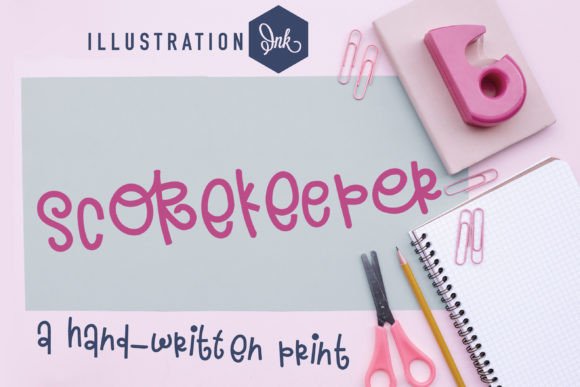
Welcome to the world of Scorekeeper, a type family that stands as a testament to the boundless creativity of human hand. A creation by Illustration Ink, this enchanting sans serif family boasts a lively, handwritten quality that is sure to make your designs sing with charm and individuality. This hand-crafted font invites you on a typographic adventure where every letter dances with joy, adding a touch of magic to your digital canvas.
Scorekeeper is not just a font, it's an open invitation to let your creativity roam free. Whether you're a seasoned designer or just starting out, this font has the power to transform your words into art. Its whimsical curves and playful characters will add an instant touch of warmth and character to your designs. Imagine your social media posts, invitations, and branding materials coming alive with the spirited elegance of Scorekeeper.
Dive into the depths of this font family and discover the perfect match for your project. With four distinct styles – Thin, Regular, Bold, and Black – you'll have the flexibility to craft designs that are both visually stunning and impactful. From delicate invitations to bold and captivating posters, Scorekeeper empowers you to craft designs that leave a lasting impression.